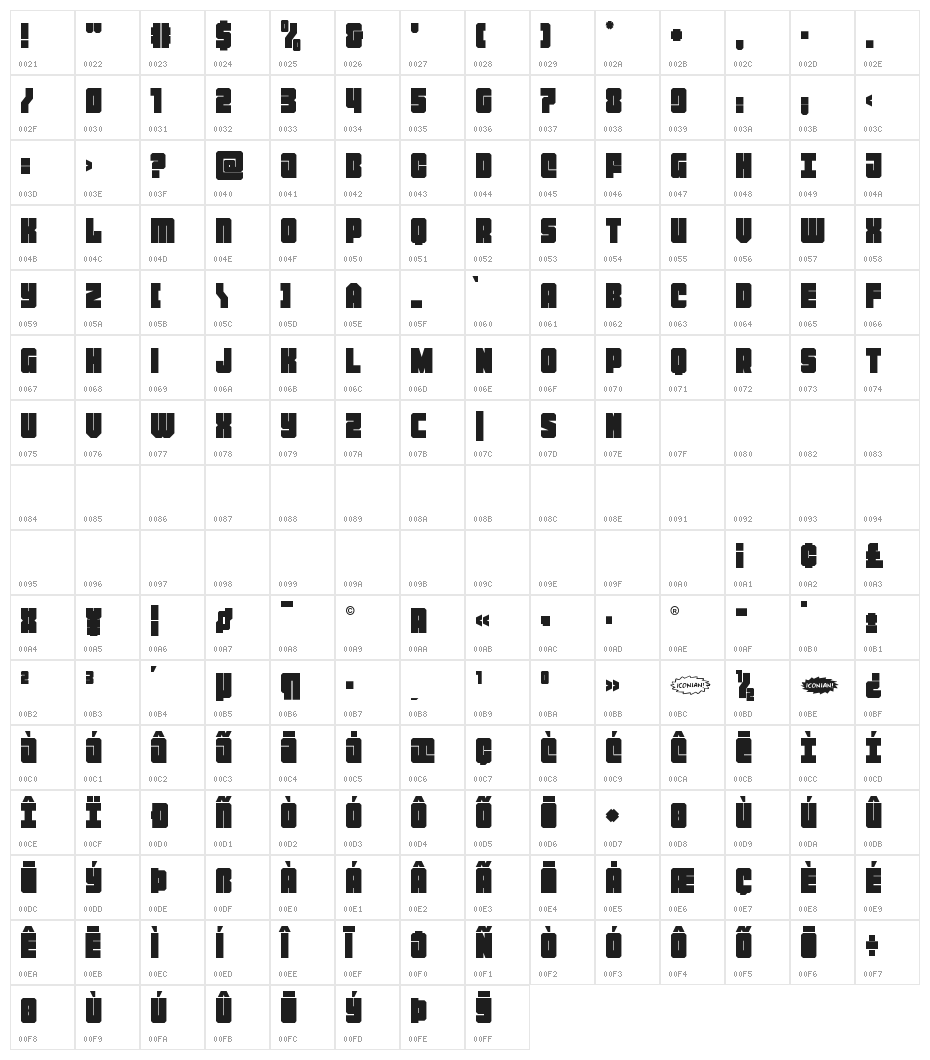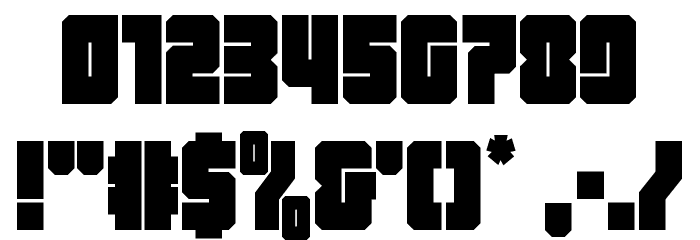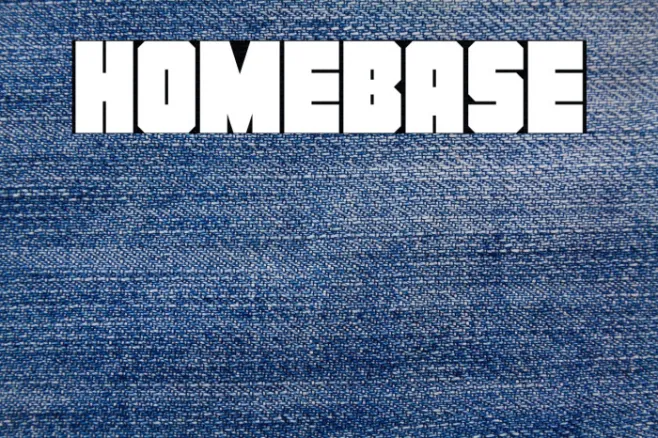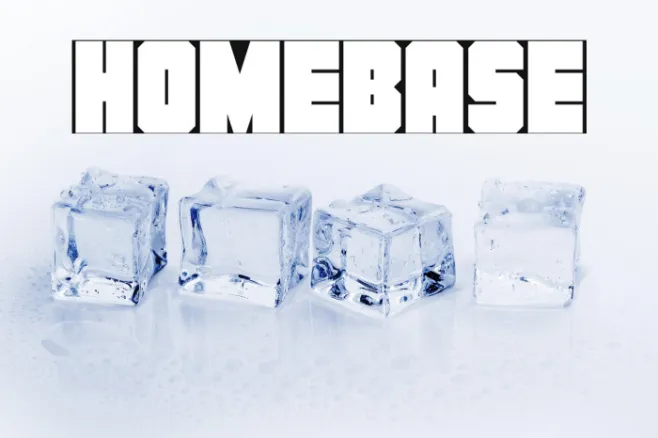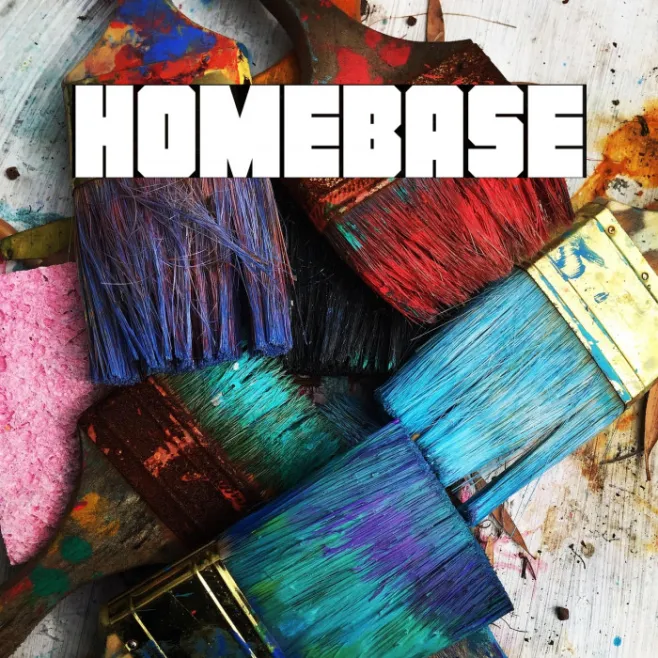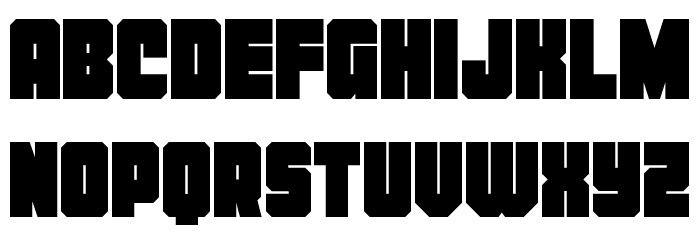
Homebase Font
Homebase Description
This font features a bold, geometric design with a strong presence. The characters are blocky and angular, with a uniform thickness throughout each letterform. The uppercase and lowercase letters maintain a consistent style, emphasizing a modern and industrial aesthetic. The numbers and special characters follow the same bold and structured design, making them highly legible and impactful. This font's style is reminiscent of digital or futuristic themes, suitable for projects that require a strong visual statement.
HOMEBASE UPPERCASE
HOMEBASE LOWERCASE
HOMEBASE OTHER CHARS
| Proposed Projects | Ideal for branding, posters, video game titles, and any project needing a strong, futuristic look. |